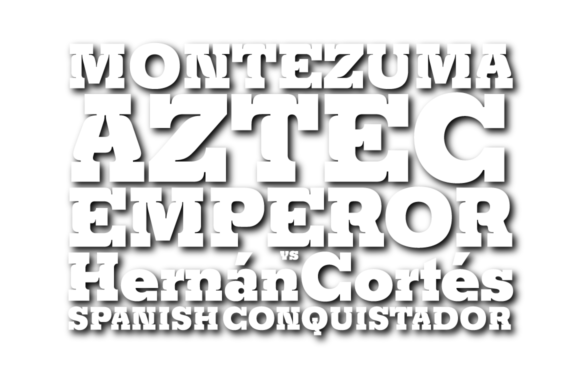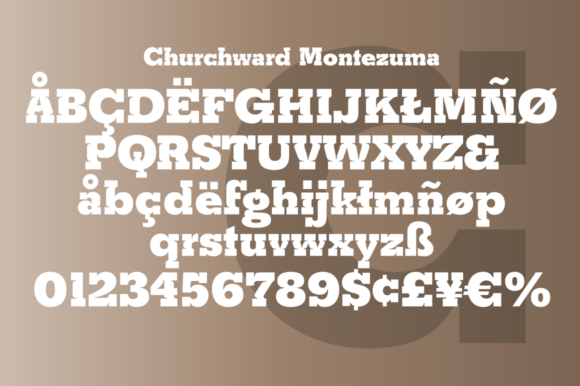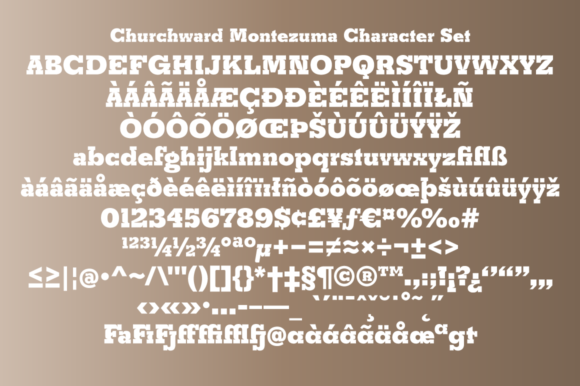
Introducing Churchward Montezuma: The Serif Font that Brings Your Designs to Life
Churchward Montezuma is a spectacular serif font created to make every design stand out! Use it in your most creative projects, and notice how it makes them come alive! In the world of typography, a good font can make all the difference between a design that falls flat and one that soars. If you’re a designer, crafter, or simply someone who loves to dabble in creative projects, you’re in luck. Churchward Montezuma is here to elevate your work and give it the professional edge you’ve been looking for.
The Story Behind Churchward Montezuma
Every font has a story, and Churchward Montezuma is no exception. Designed with the intention of creating a unique and versatile serif font, Churchward Montezuma is the brainchild of talented typographers who understand the importance of detail and aesthetic appeal. The font’s name, Montezuma, evokes the grandeur and majesty of ancient civilizations, reflecting the font’s robust and classic feel.
What Makes Churchward Montezuma Stand Out?
So, what sets Churchward Montezuma apart from the countless fonts available today? Here are a few key features that make it a standout choice for designers and crafters:
- Unique Serif Design: Churchward Montezuma boasts a distinctive serif design that adds a touch of elegance and sophistication to any project. Its serifs are carefully crafted to provide a perfect balance between classic and modern.
- Versatility: Whether you’re working on a logo, a website, a brochure, or any other design project, Churchward Montezuma proves to be incredibly versatile. It comes in various weights, allowing you to choose the perfect one to match your design’s tone and style.
- Legibility: One of the most important aspects of any font is legibility, and Churchward Montezuma excels in this area. Its clear and well-defined characters ensure that your text is easy to read, even at smaller sizes.
- Character Set: With a comprehensive character set, Churchward Montezuma includes not just the basic letters and numbers, but also a range of punctuation marks, symbols, and diacritics, making it suitable for a wide array of languages and design needs.
How to Use Churchward Montezuma in Your Projects
Now that you’re familiar with Churchward Montezuma’s impressive features, let’s talk about how to integrate it into your design workflow. Here are some tips to get you started:
- Pair it with Other Fonts: For maximum impact, try pairing Churchward Montezuma with other fonts. Its classic serif design pairs well with sans-serif fonts for a contrasting look or with other serif fonts for a layered, sophisticated feel.
- Experiment with Weights: Churchward Montezuma comes in various weights, from light to bold. Experiment with different weights to find the perfect balance for your design. For instance, use a bold weight for headings and a lighter weight for body text.
- Play with Colors: While the font itself is a significant design element, don’t forget about color. Churchward Montezuma looks stunning in a wide range of colors, from deep blacks and rich woods to bright and bold hues.
Who Can Benefit from Churchward Montezuma?
Churchward Montezuma is more than just a font; it’s a design tool that can benefit a wide range of professionals and hobbyists. Here are a few groups who can particularly benefit from this spectacular serif font:
- Graphic Designers: Whether you’re working on branding, advertising, or print materials, Churchward Montezuma can add a professional and distinctive touch to your designs.
- Web Designers: In the digital realm, typography is crucial for user experience. Churchward Montezuma’s legibility and aesthetic appeal make it an excellent choice for web projects.
- Crafters and Makers: If you’re into crafting, scrapbooking, or any form of DIY project that involves lettering or typography, Churchward Montezuma can help elevate your work with its unique and stylish look.
| Font Name | Churchward Montezuma Font |
In conclusion, Churchward Montezuma is not just another serif font; it’s a design powerhouse that can transform your projects with its unique blend of classic elegance and modern versatility. Whether you’re a seasoned designer or a hobbyist looking to add a professional edge to your work, Churchward Montezuma is definitely worth exploring. So why wait? Give Churchward Montezuma a try today and see how it can bring your designs to life!